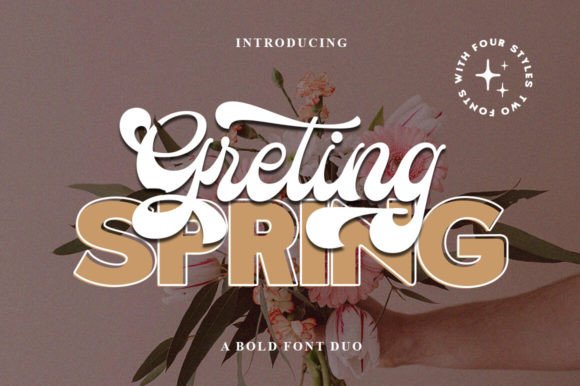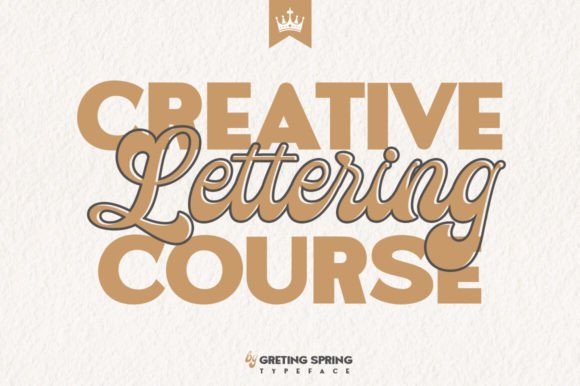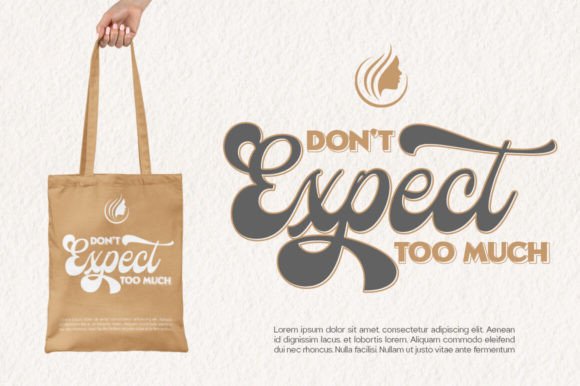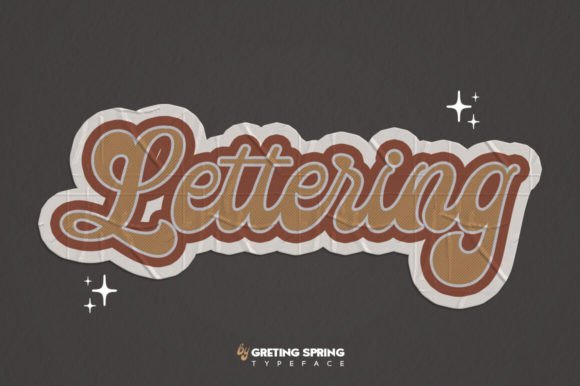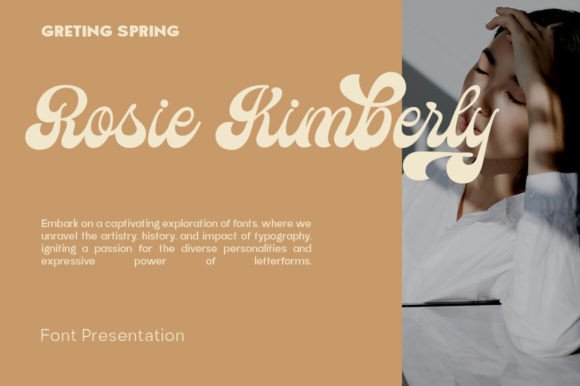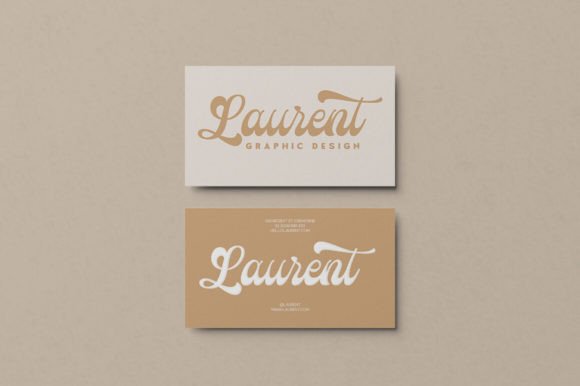
Greting Spring Duo Font
Greting Spring retro font is styled like a logotype letter and is created to help you design a logotype or writing style for your brand or your client.
The font contains all the characters you need, including all punctuation and numbers. Greeting Spring has 2 fonts, these four fonts are used using the layer method so that they can produce fonts that are attractive to look at, you no longer need to worry about thinking about how to give effects to the text.